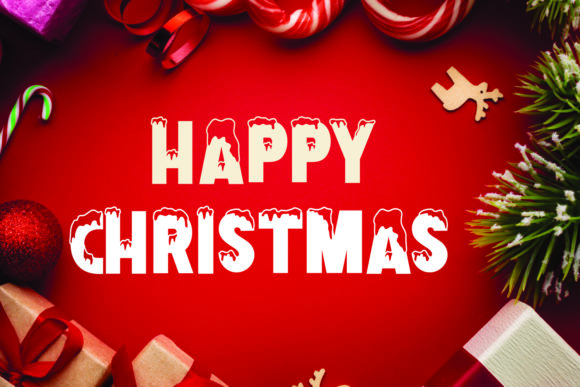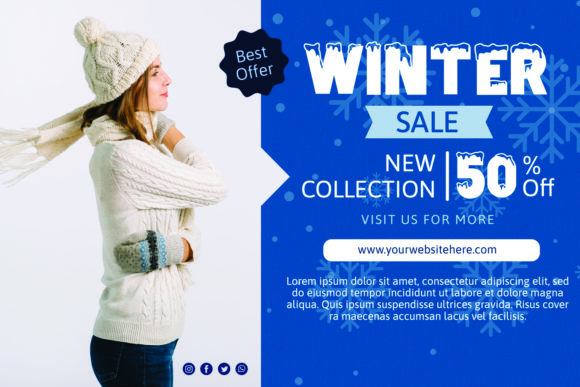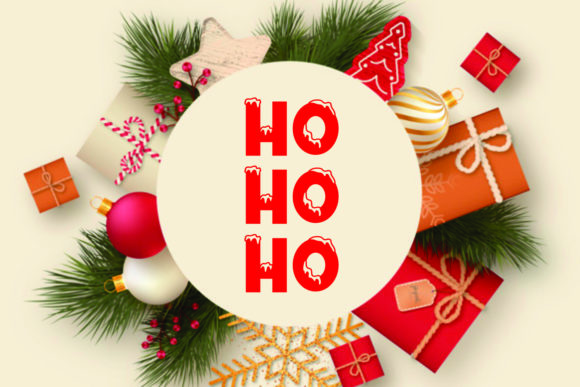
Introduction to Frozbite Font
Frozbite is a bold and chunky lettered display font.
Add it to your winter related designs and make them stand out .
Why Choose Frozbite Font?